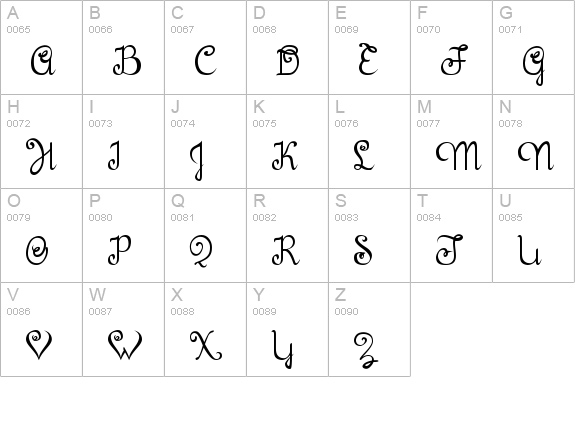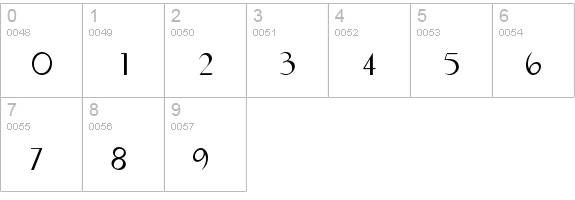
Sachiko Font Details
Introducing Sachiko, a modern and elegant font that exudes sophistication and style. This versatile typeface is perfect for a wide range of design projects, from branding and packaging to editorial layouts and web design. Sachiko features clean lines and a balanced letterform, making it easy to read and pleasing to the eye. Its timeless appeal makes it suitable for both traditional and contemporary designs, adding a touch of class to any project. But what sets Sachiko apart is not only its exquisite design, but also the fact that it is free. That's right, this incredible font is freely available to download at FontsMarket.com. Now you can enhance your designs without breaking the bank, as Sachiko offers the perfect blend of quality and affordability. Whether you're a professional designer or a casual hobbyist, Sachiko is a must-have addition to your font collection. Its versatility and elegance make it a go-to choice for any creative project, while its free availability ensures that everyone can enjoy its beauty. So why wait? Visit FontsMarket.com today and download Sachiko for free. Unleash your creativity and elevate your designs with this stunning font. With Sachiko, the possibilities are endless.